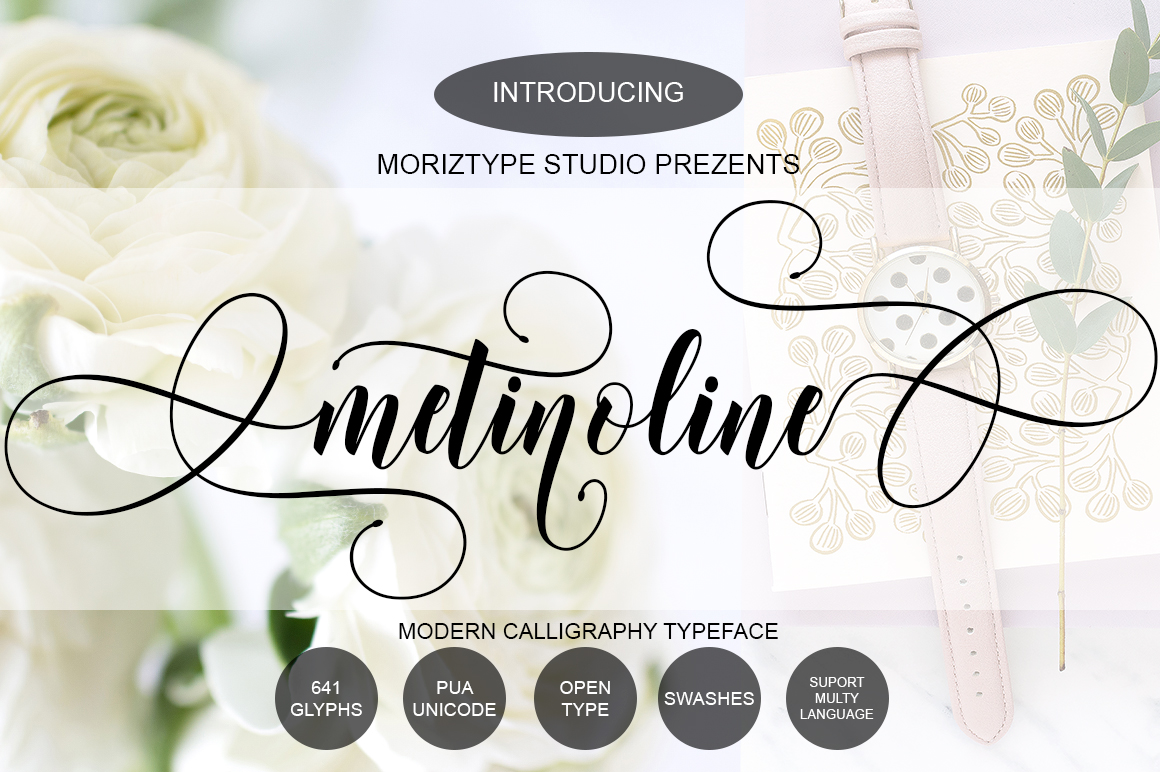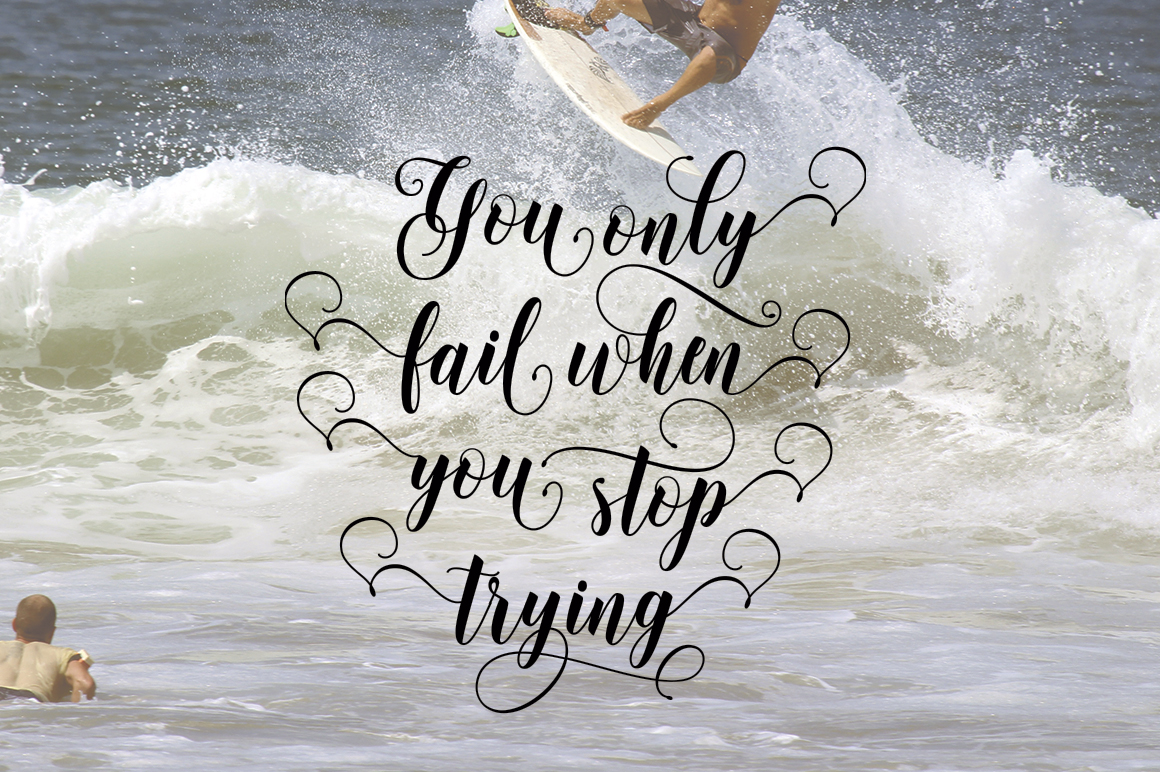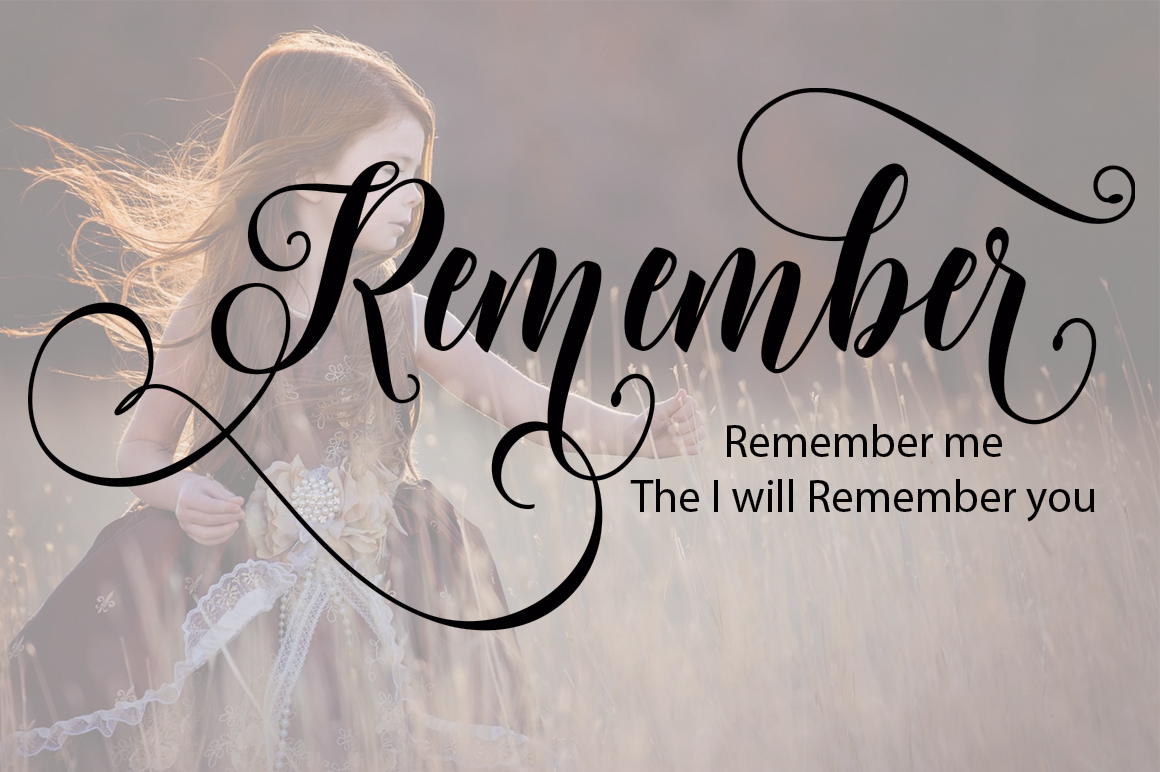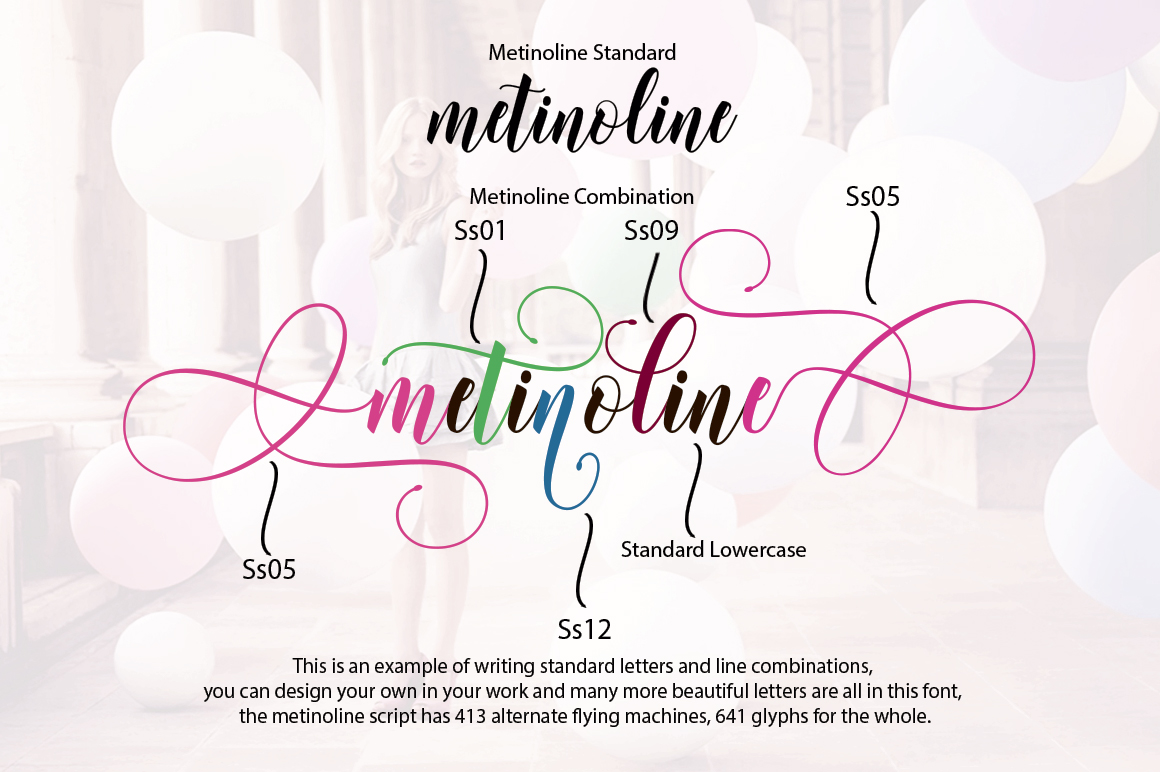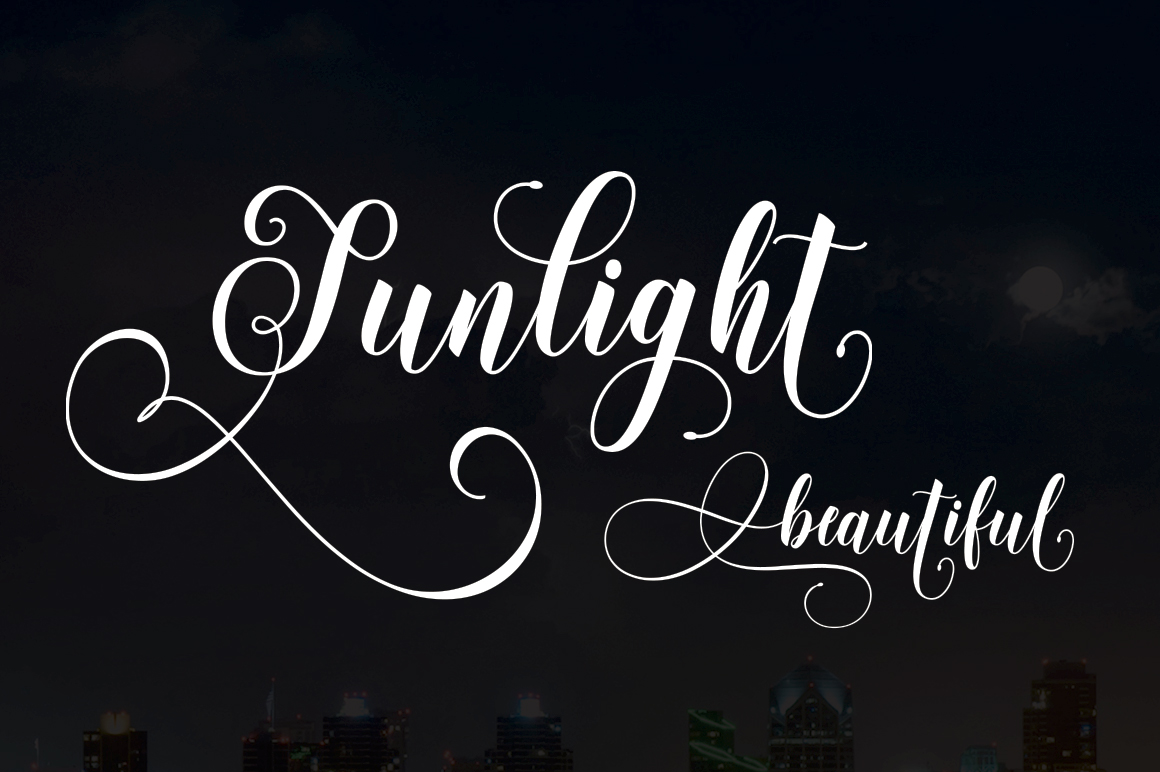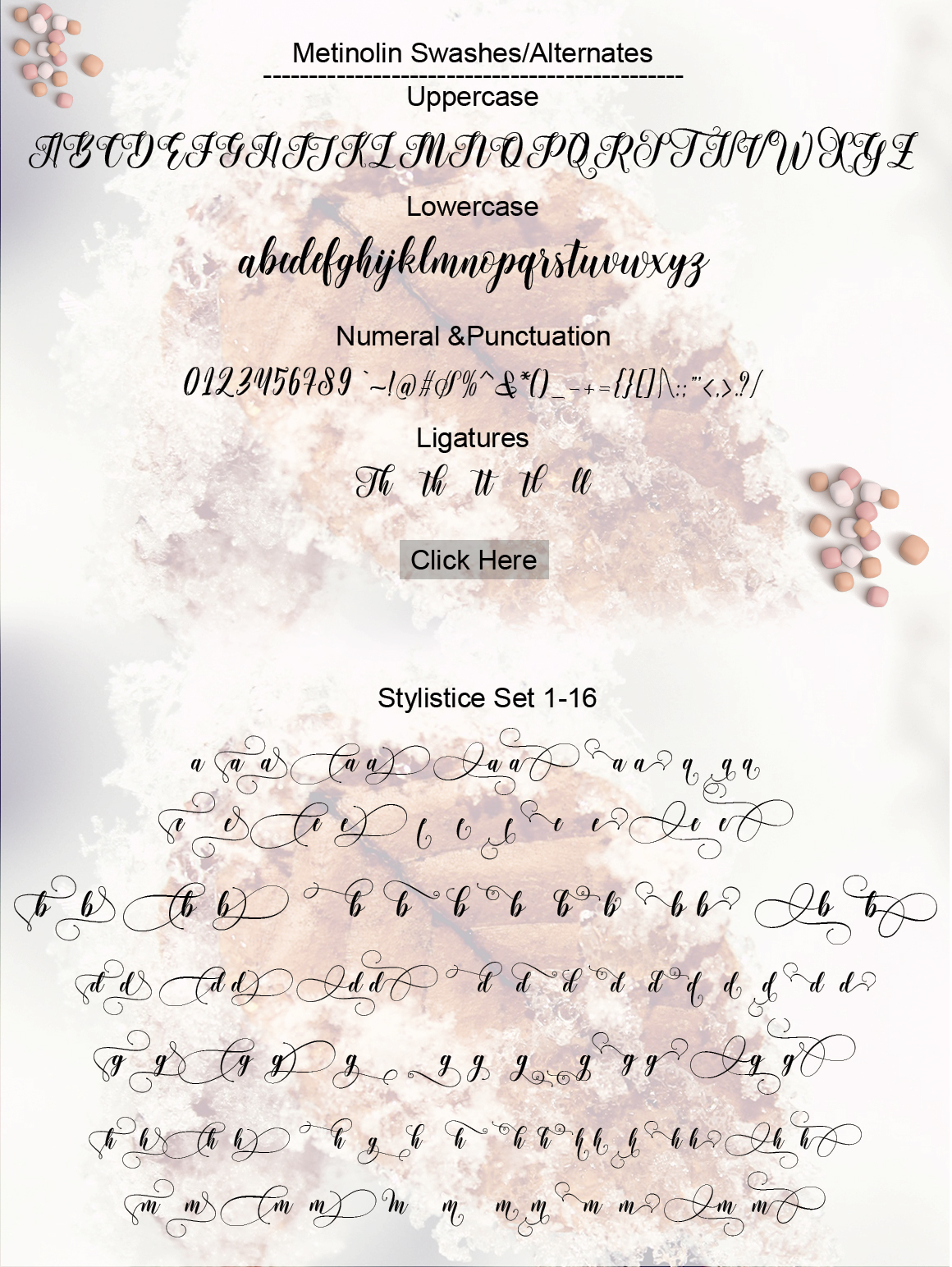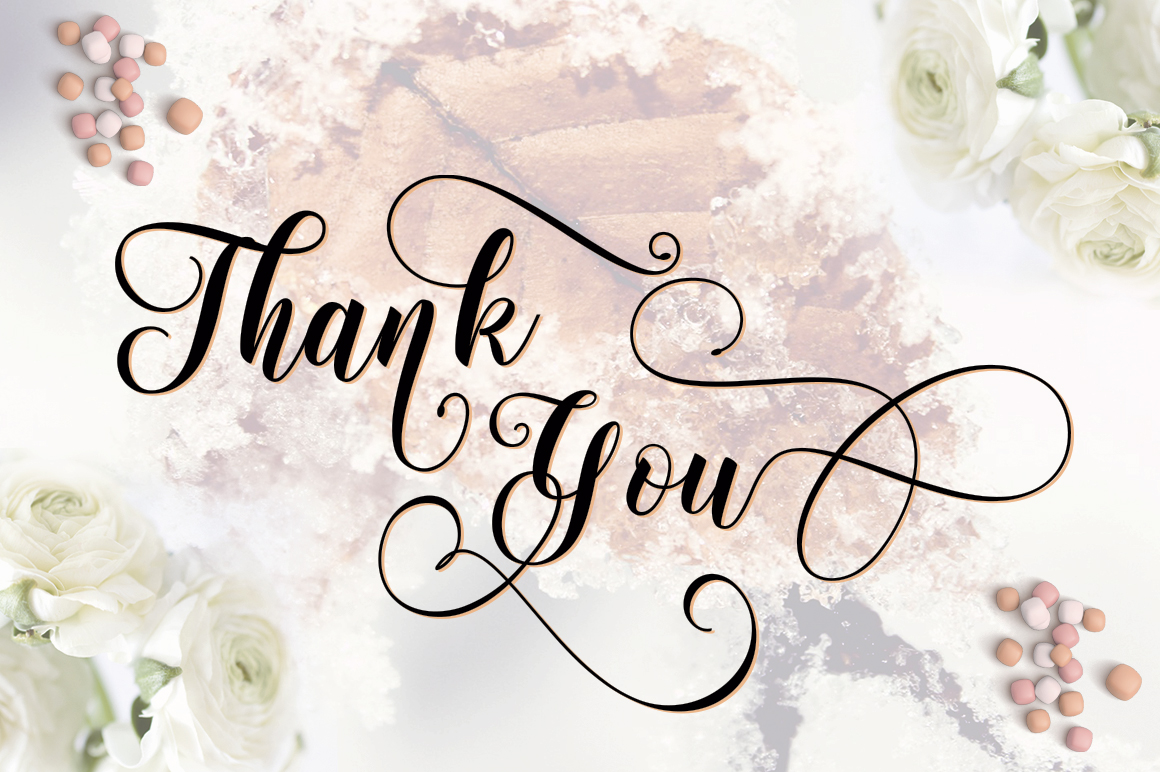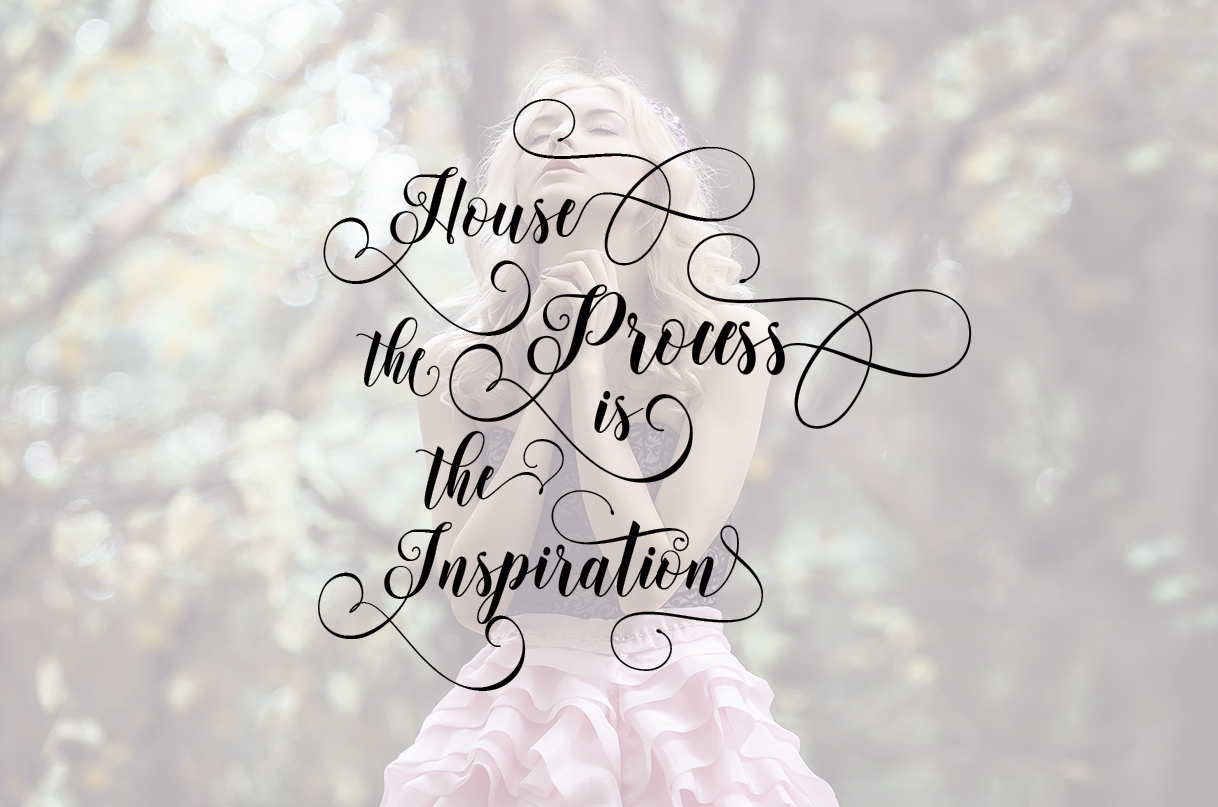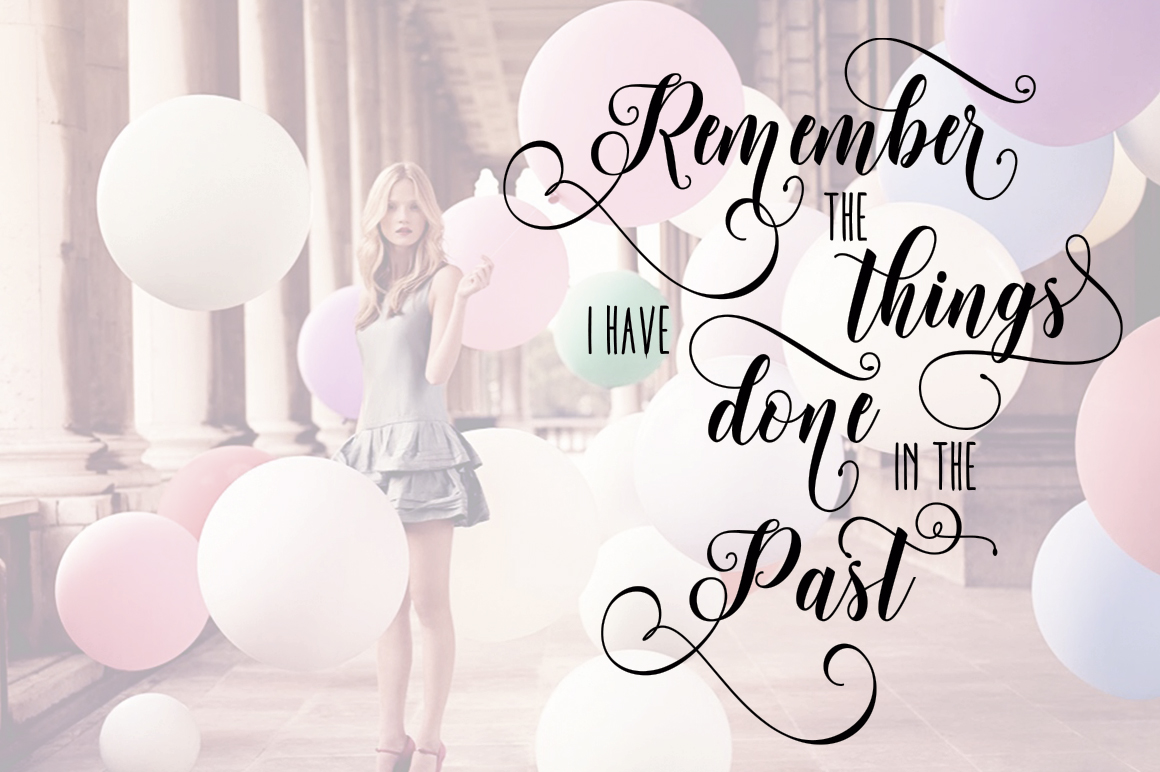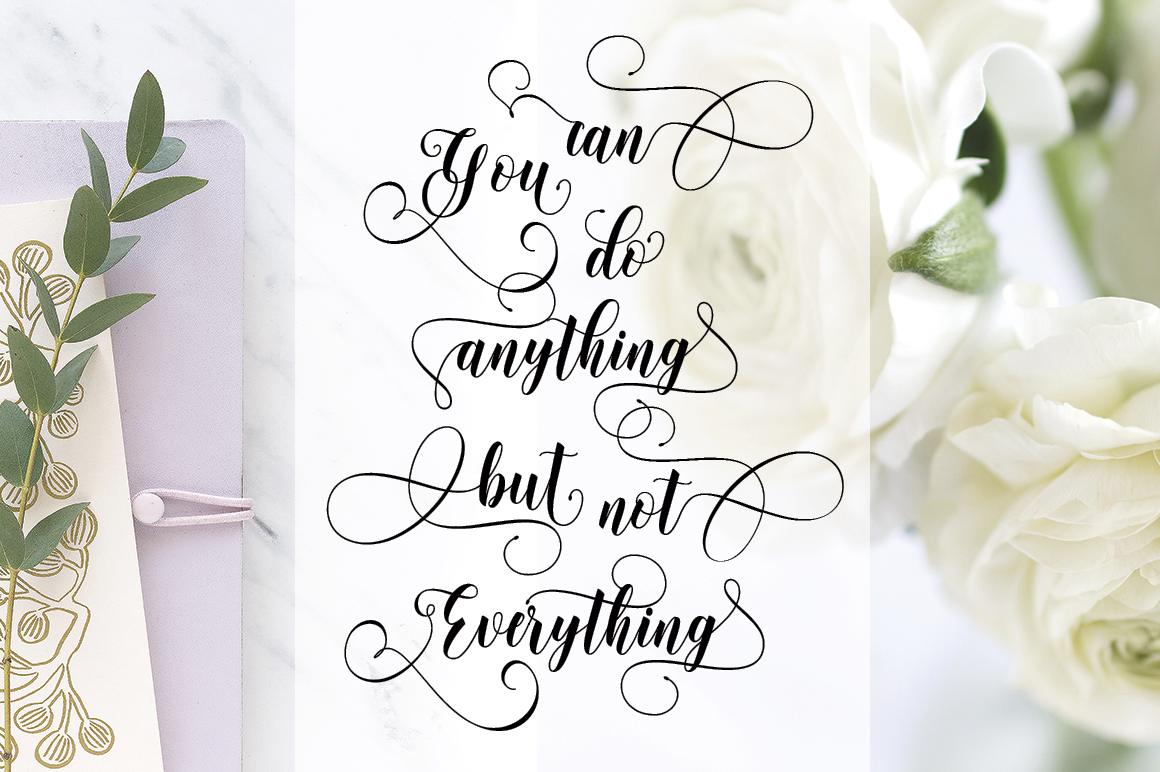
Metinoline Script Font
About Metinoline Script Font
With over 640 glyphs, Metinoline is an amazingly diverse and fresh script font providing nearly endless design possibilities! With a dancing baseline and beautiful flourishes, Metinoline is definitely the full package.